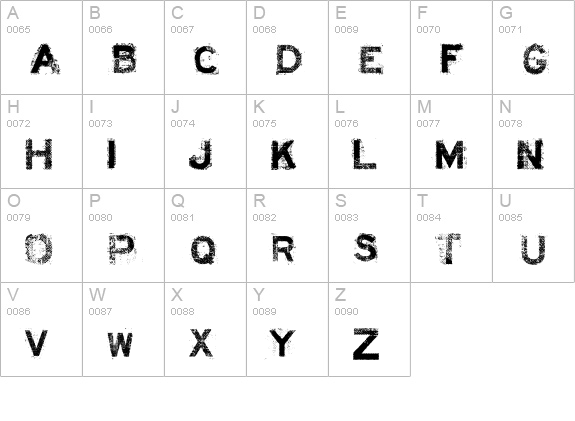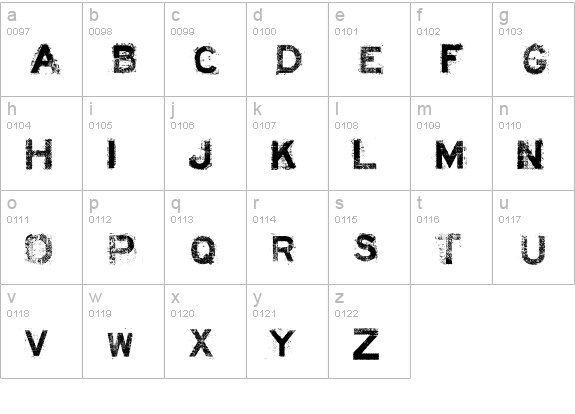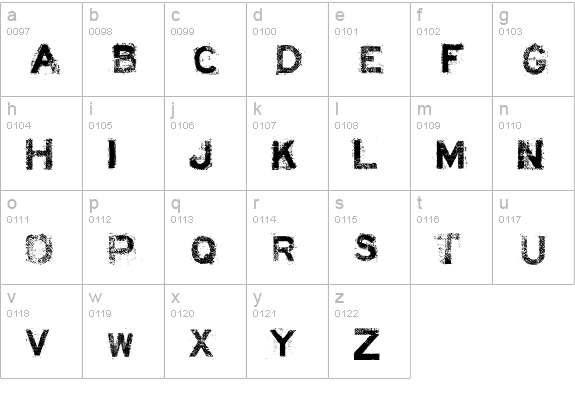
ACID LABEL___ Font Details
Introducing ACID LABEL___ font, a modern and edgy typeface that exudes a unique and bold personality. This font is perfect for creating eye-catching designs that demand attention. With its sharp angles and sleek lines, ACID LABEL___ is sure to make a statement in any project. What sets ACID LABEL___ font apart is its versatility and ability to adapt to various design styles, making it a must-have for designers looking to add a touch of originality to their work. Whether used for branding, posters, or social media graphics, this font will elevate your designs to the next level. Best of all, ACID LABEL___ font is completely free to download at FontsMarket.com. Now you can access this stunning font and unleash your creativity without any cost. Don't miss out on the opportunity to enhance your designs with this dynamic and captivating typeface. Download ACID LABEL___ font today and take your projects to new heights.